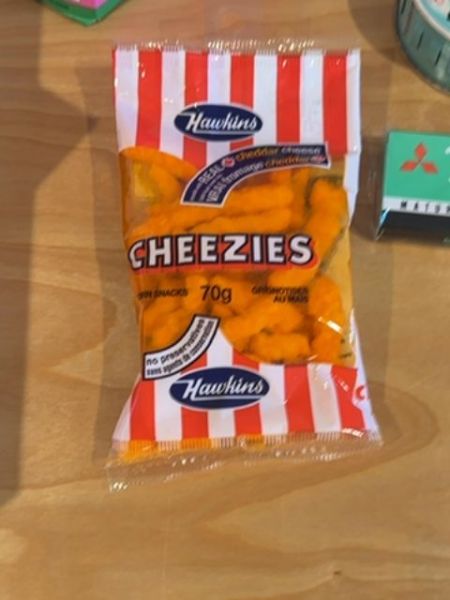
Hawkins Cheezies
A crunchy snack made from real cheddar cheese, known for its bold flavor and unique texture.
1949
Canada
The typography features a bold, sans-serif font for 'Cheezies' that is both playful and robust. The use of capital letters gives it a strong presence, while the brand name 'Hawkins' is presented in a cursive, italicized font, adding a classic touch to the packaging aesthetic.
The packaging features a clear front with bold red and white vertical stripes, allowing the vibrant orange product to be visible. The brand name is prominently displayed in navy blue over a white background, giving it high contrast and visibility.
- Made with real cheddar cheese.
- Distinctive crunchy texture.
- Produced by Hawkins since the mid-20th century.